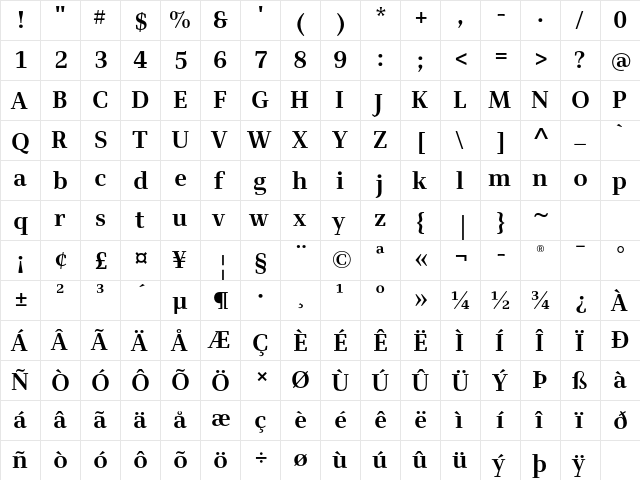
Alfon Bold Font Preview
Alfon Bold
Alfon Bold Font Details
| Foundry | Terminal Design Inc. |
| Designer | James Montalbano |
Design Context for Alfon Typeface
Alfon offers clean, dependable letterforms without strong stylistic allegiance, making it a practical choice for designers who need flexibility. Its bold stroke weight gives it real presence on the page.
Pro Tip: Pair Alfon with a font of contrasting weight or personality to build a more expressive typographic hierarchy.